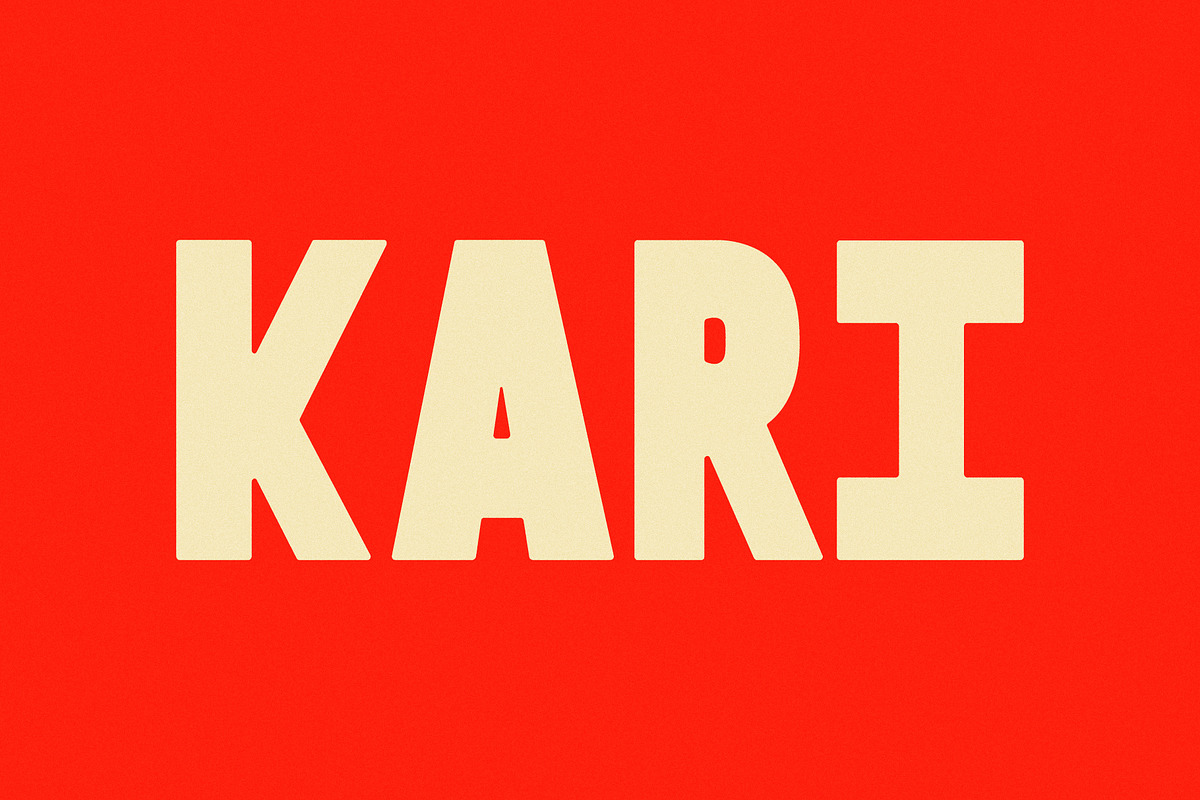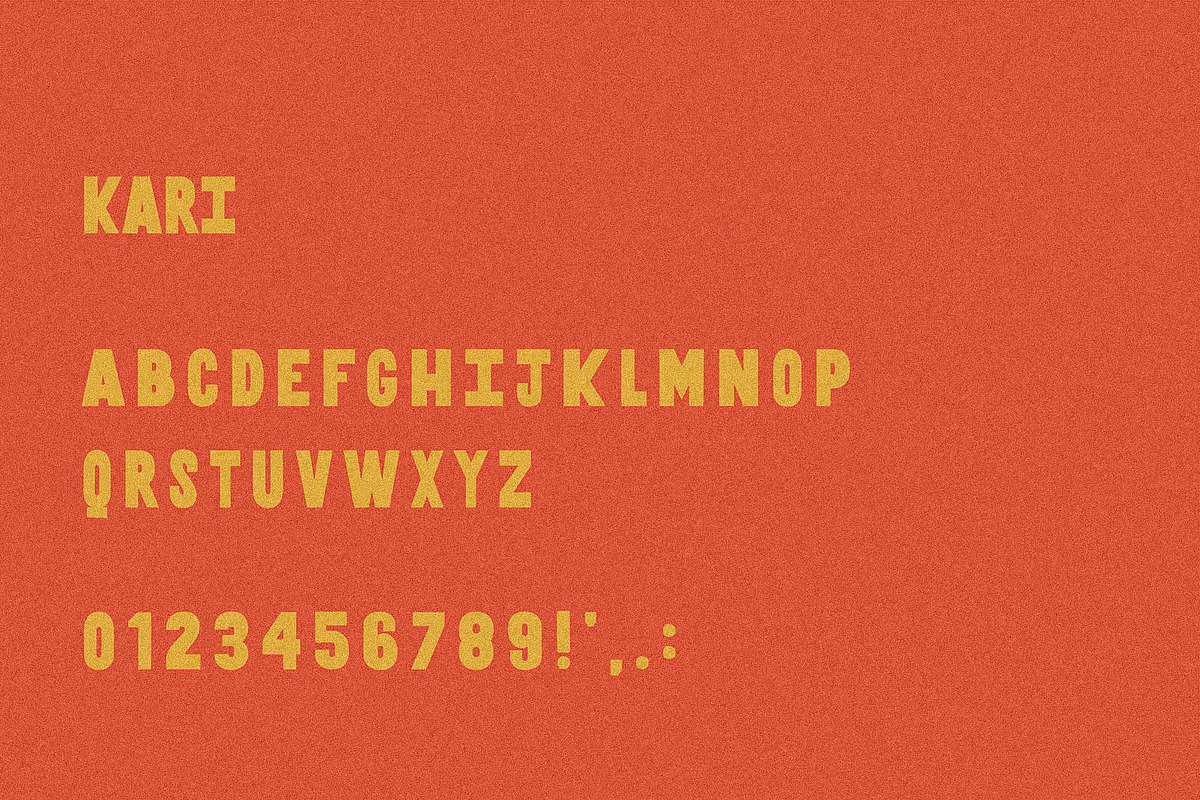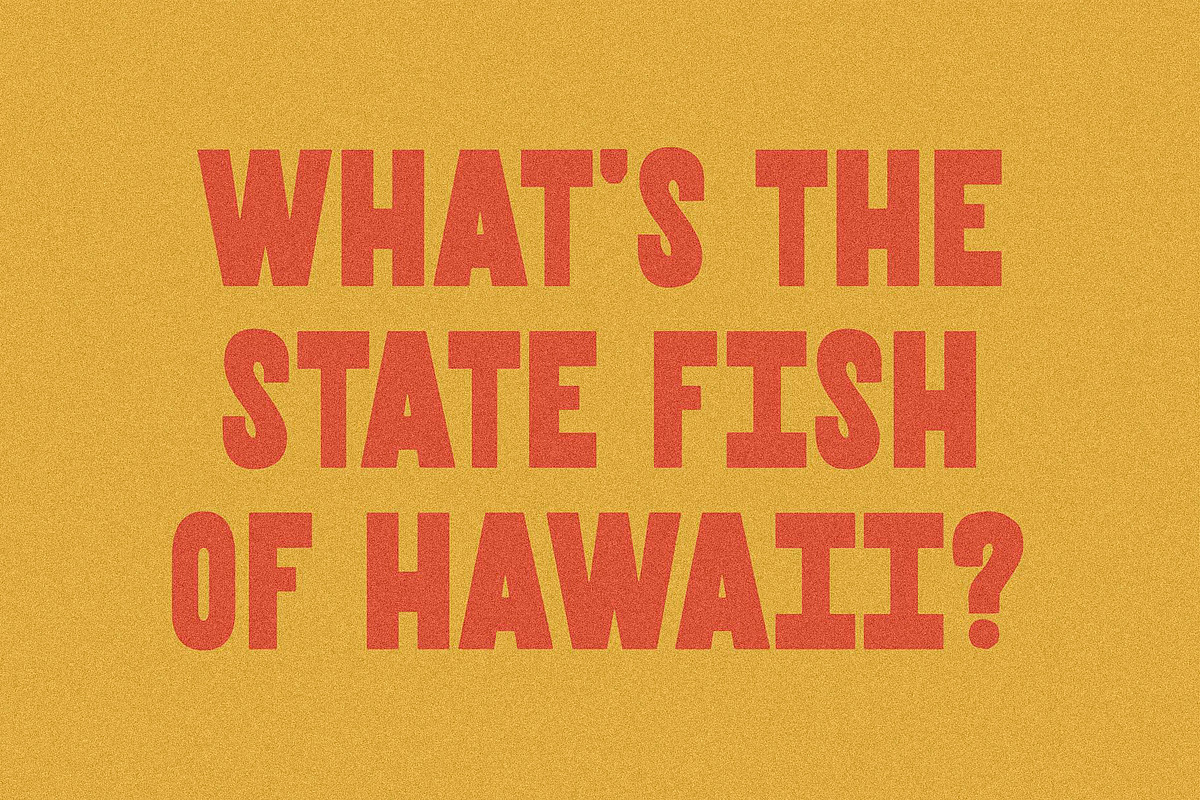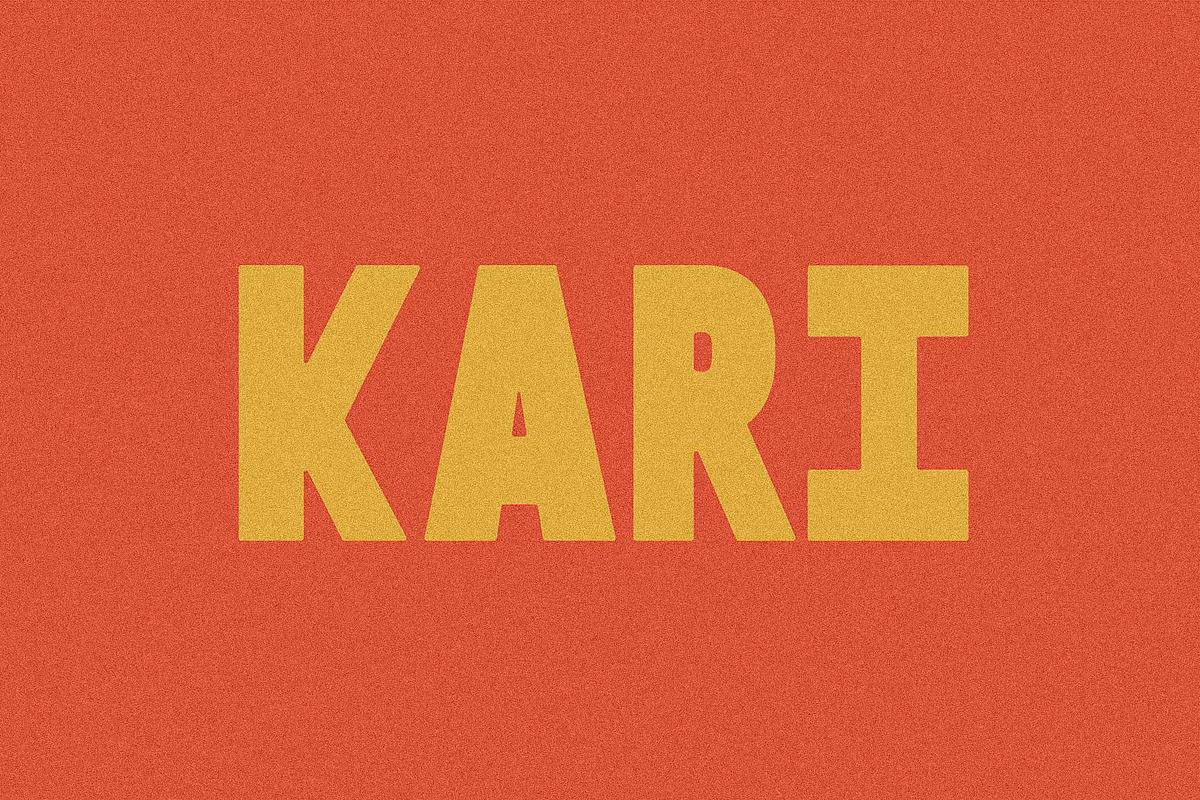
Kari I A Bold Sans Serif
Kari Type is what happens when two designers and a decent idea commit.
A collab with Abraham of Sabio Salon, this display font includes both regular and condensed widths accessed via the shift key. You could call it a variable font, but that’d be generous.
Basic Latin support with a limited set of accented characters.